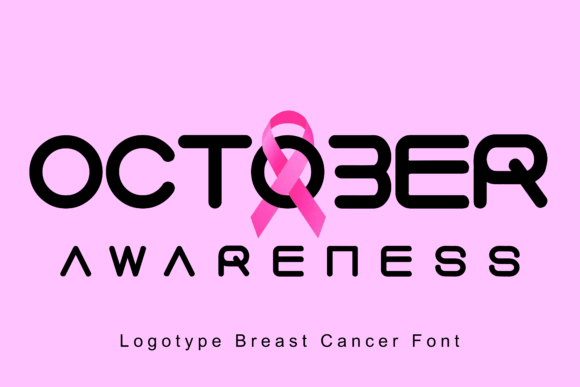
Introduction to October Awareness Font
October Awareness is a simple and casual display font with an undeniable clean feel.
With its neat and beautiful letter arrangement, this type of letter will stand out in both formal and informal designs Very suitable for logotypes.